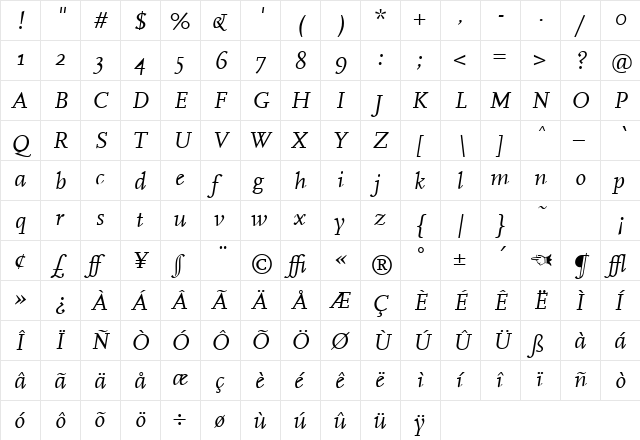
FFScala-Italic Regular
Design Context for FFScala-Italic Typeface
FFScala-Italic is a composed and adaptable typeface that performs quietly and consistently across a wide range of design contexts. Its italic angle brings a sense of urgency and motion to the letterforms.
Pro Tip: Use FFScala-Italic for emphasis, pull quotes, and subheadings where its slanted energy can add rhythm to the layout.